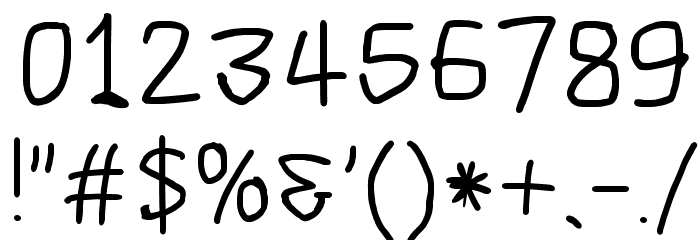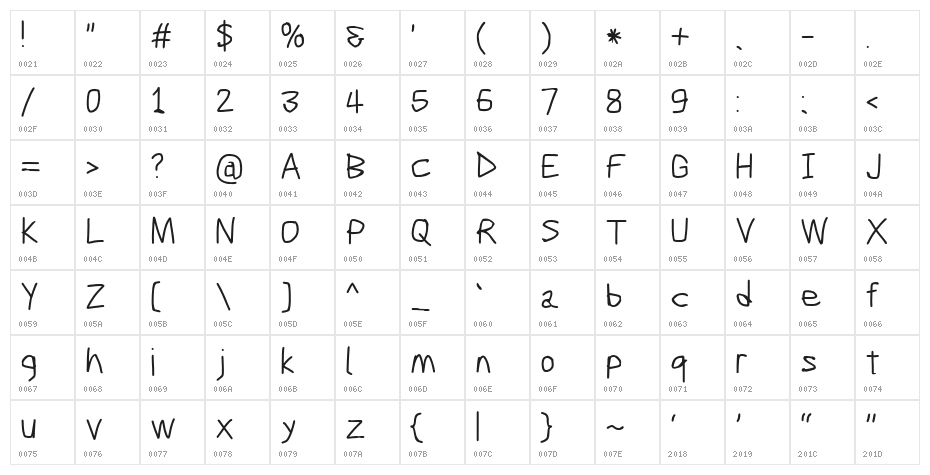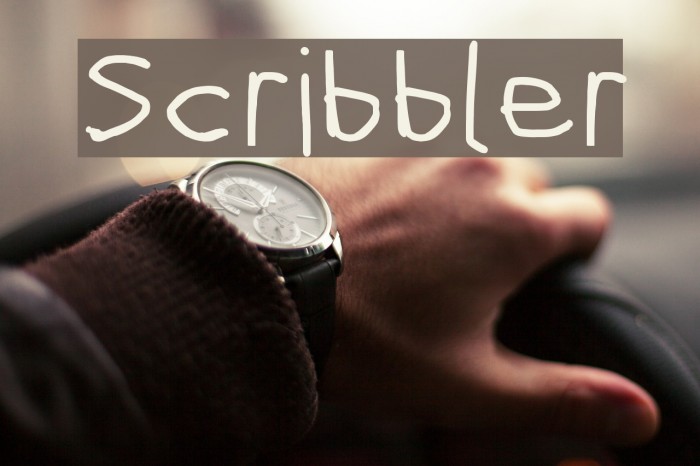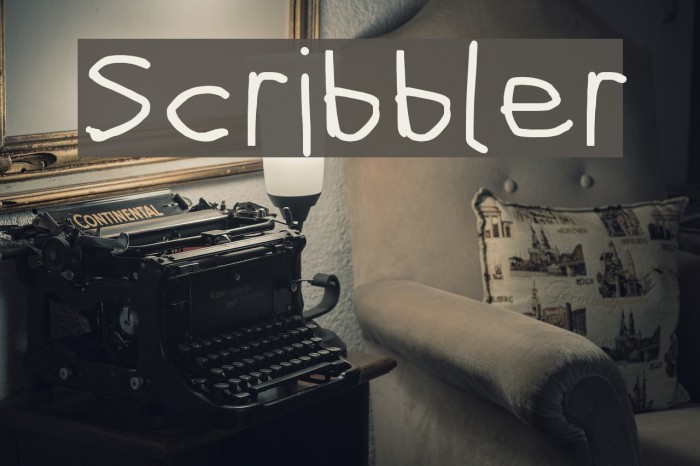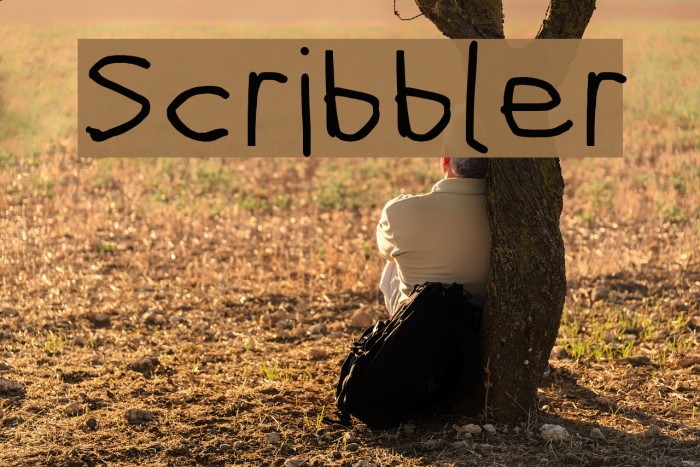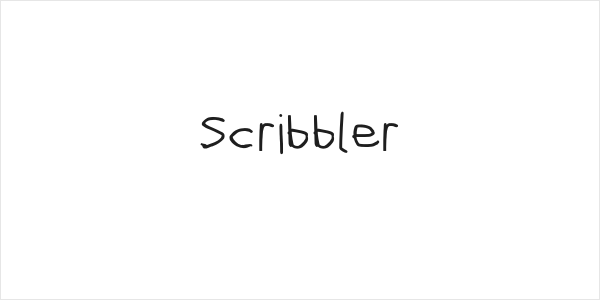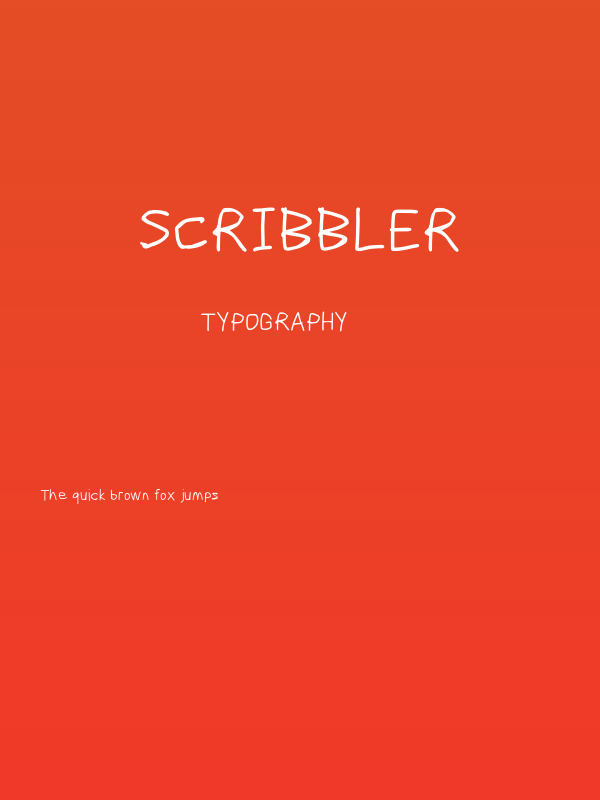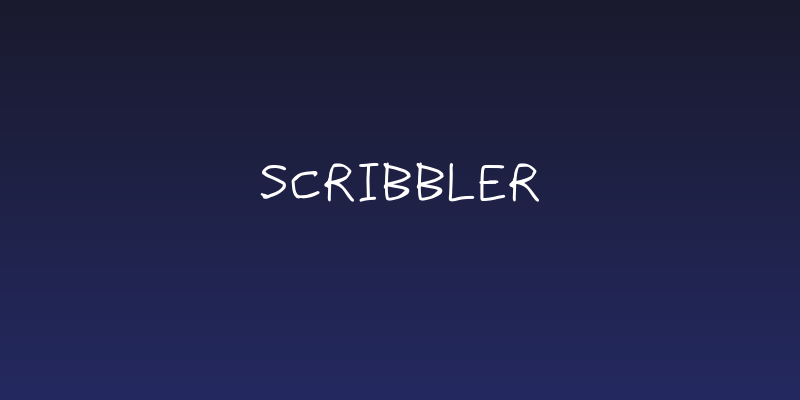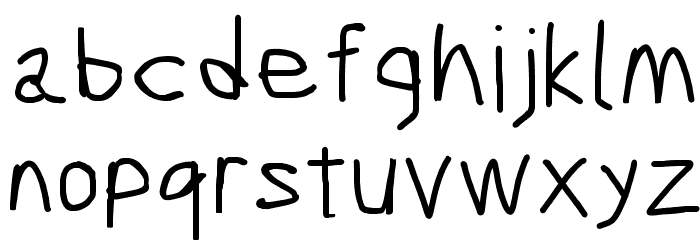
Scribbler Font
Scribbler Description
This font exudes a playful and informal style, reminiscent of handwriting with a slightly uneven and organic feel. The characters are crafted with a casual flair, featuring rounded edges and a consistent stroke width that gives it a friendly and approachable appearance. The uppercase and lowercase letters maintain a cohesive look, while the numerals and special characters complement the overall design. This font is perfect for projects that require a personal touch, such as invitations, greeting cards, or children's books.
| Proposed Projects | Ideal for invitations, greeting cards, children's books, and informal branding. |